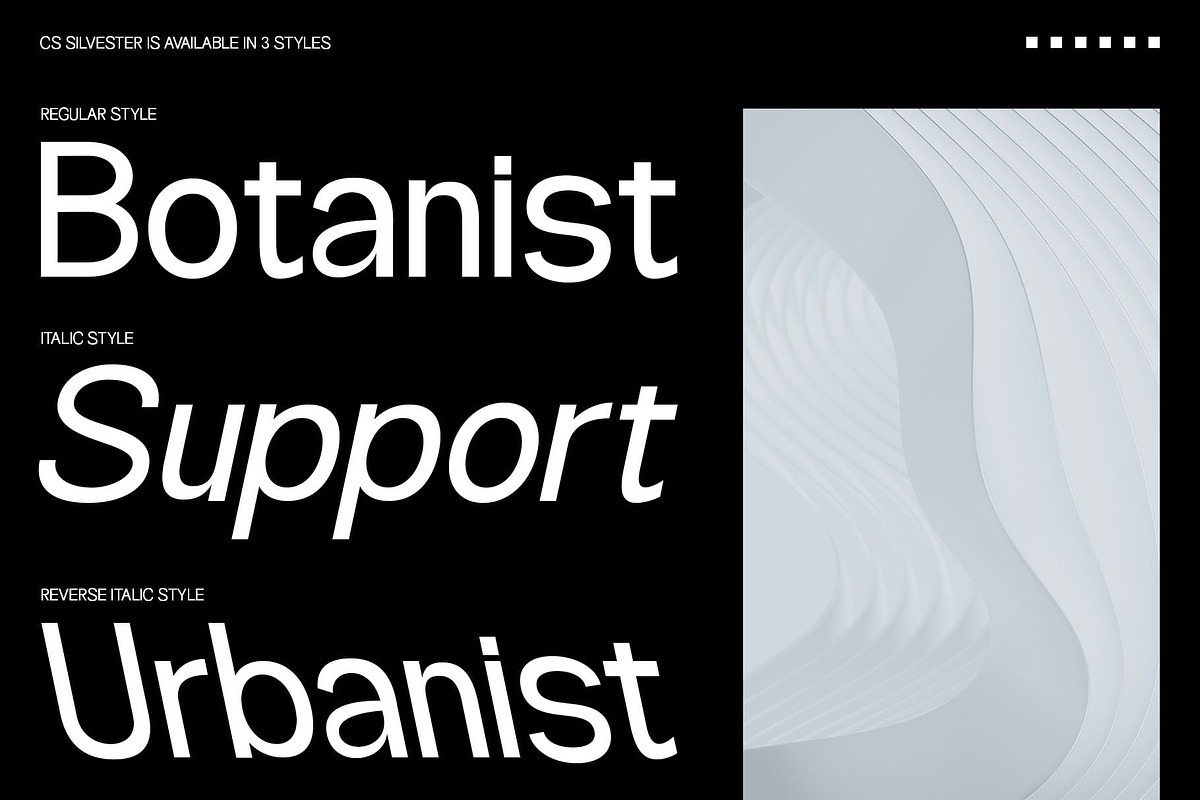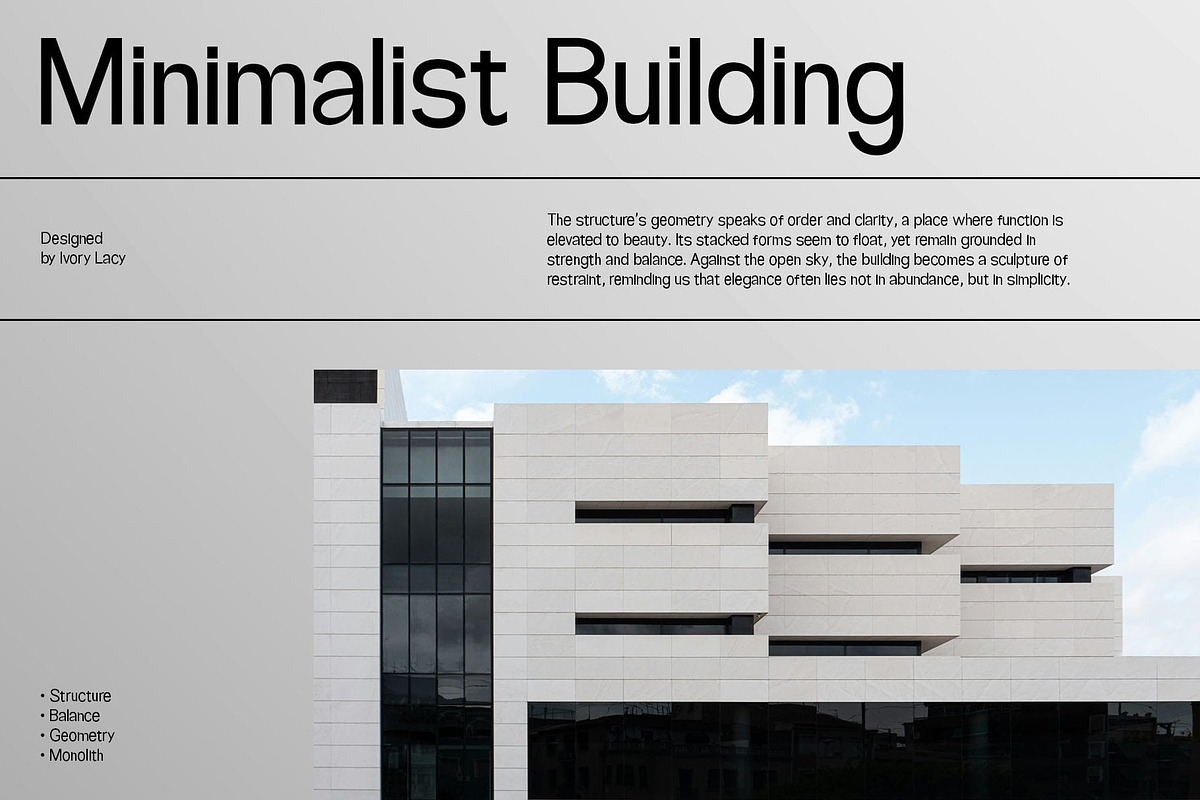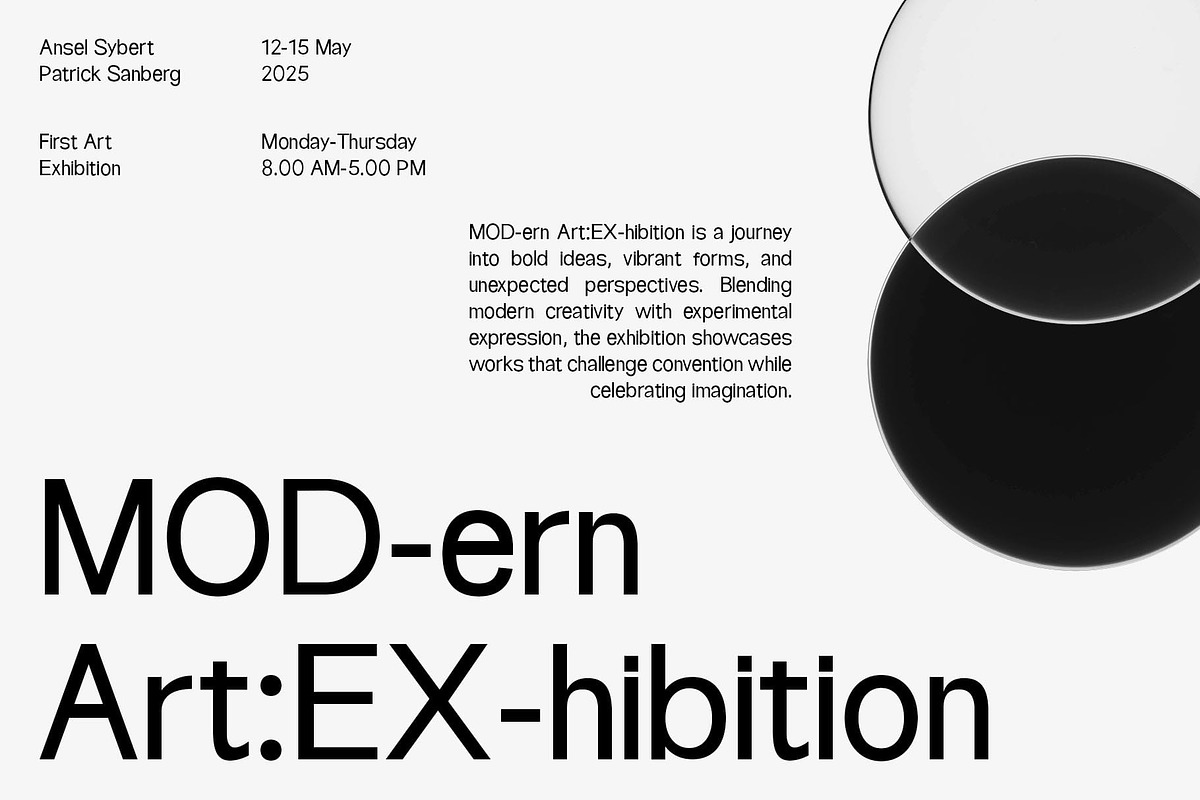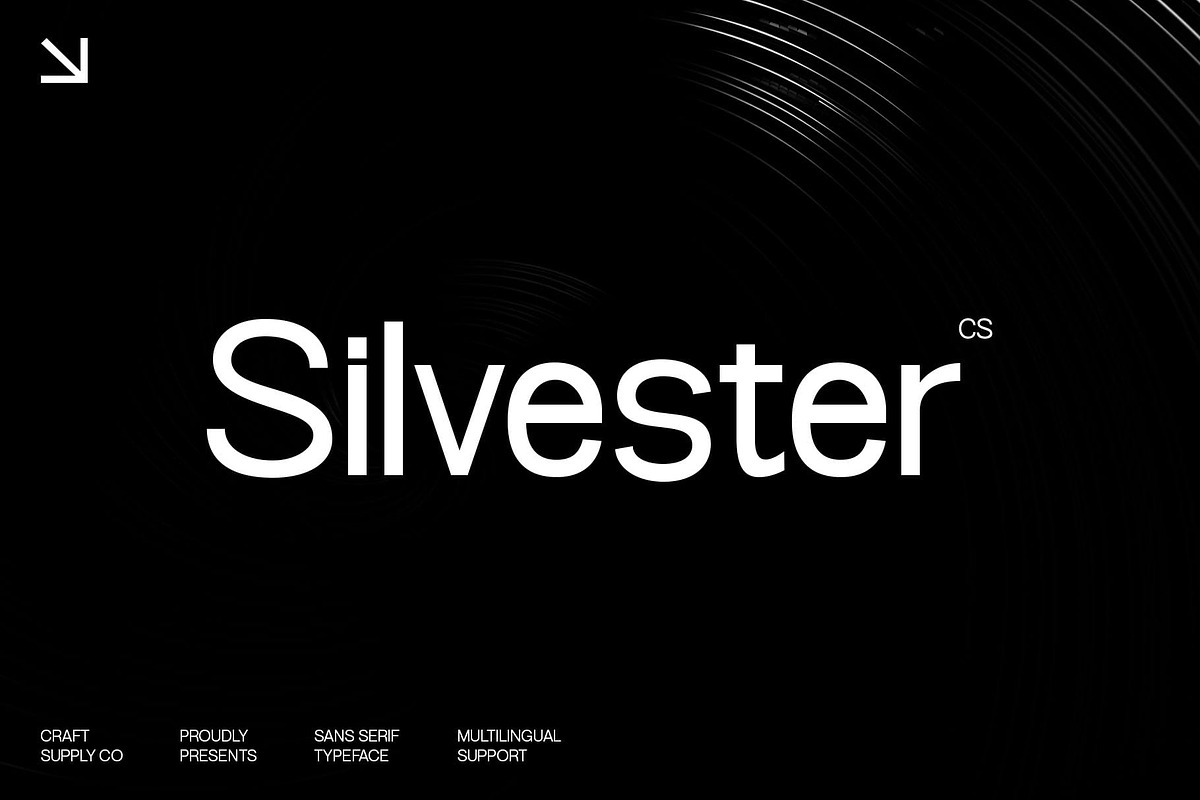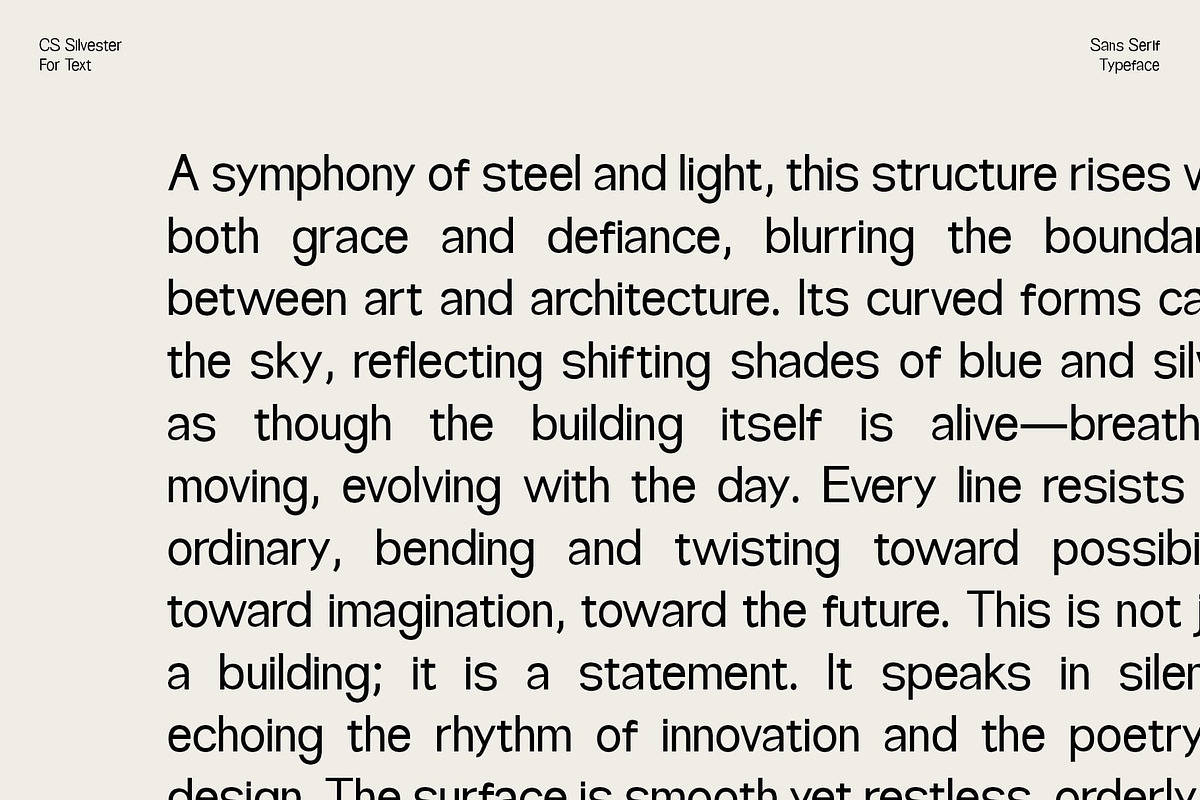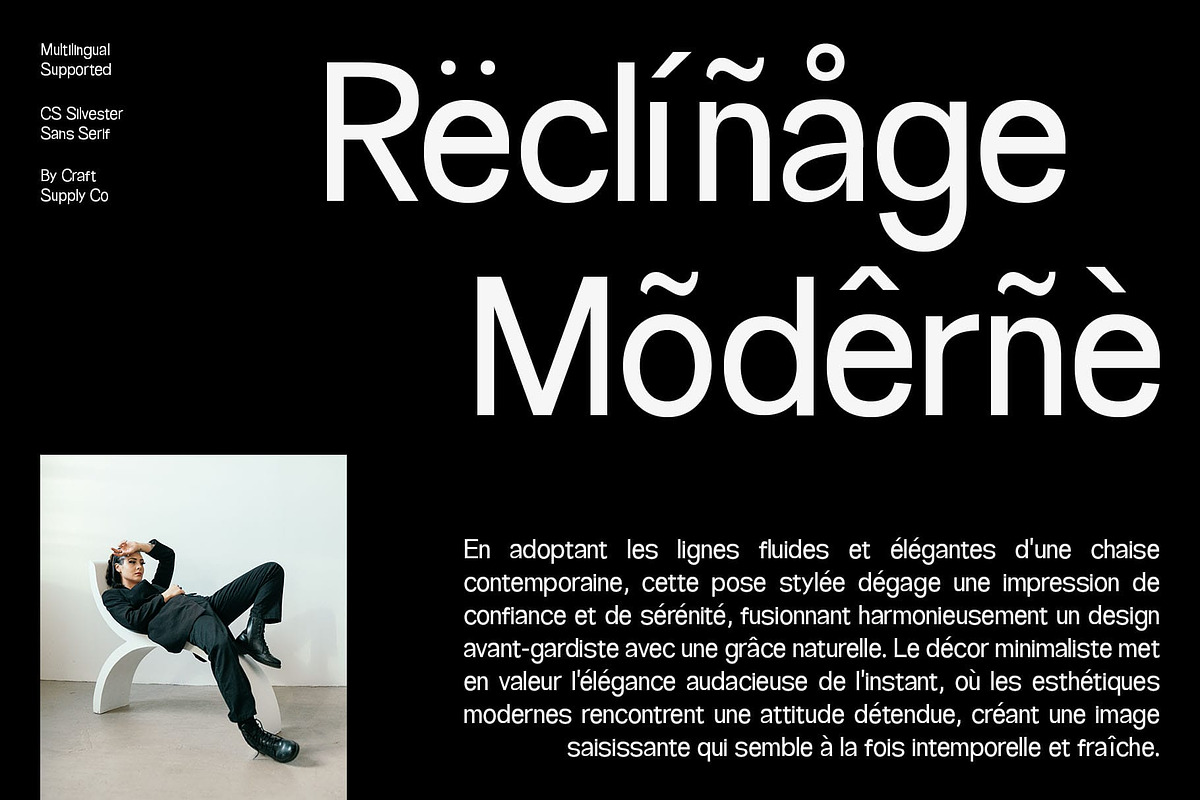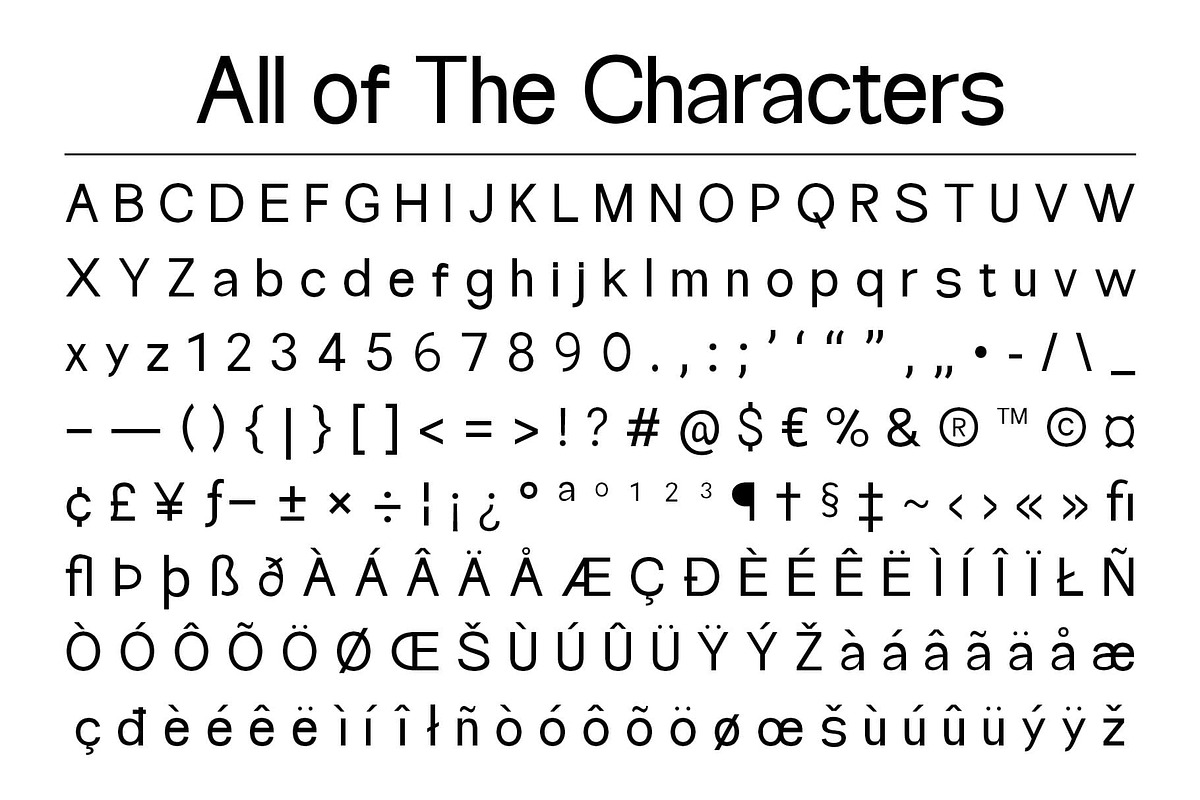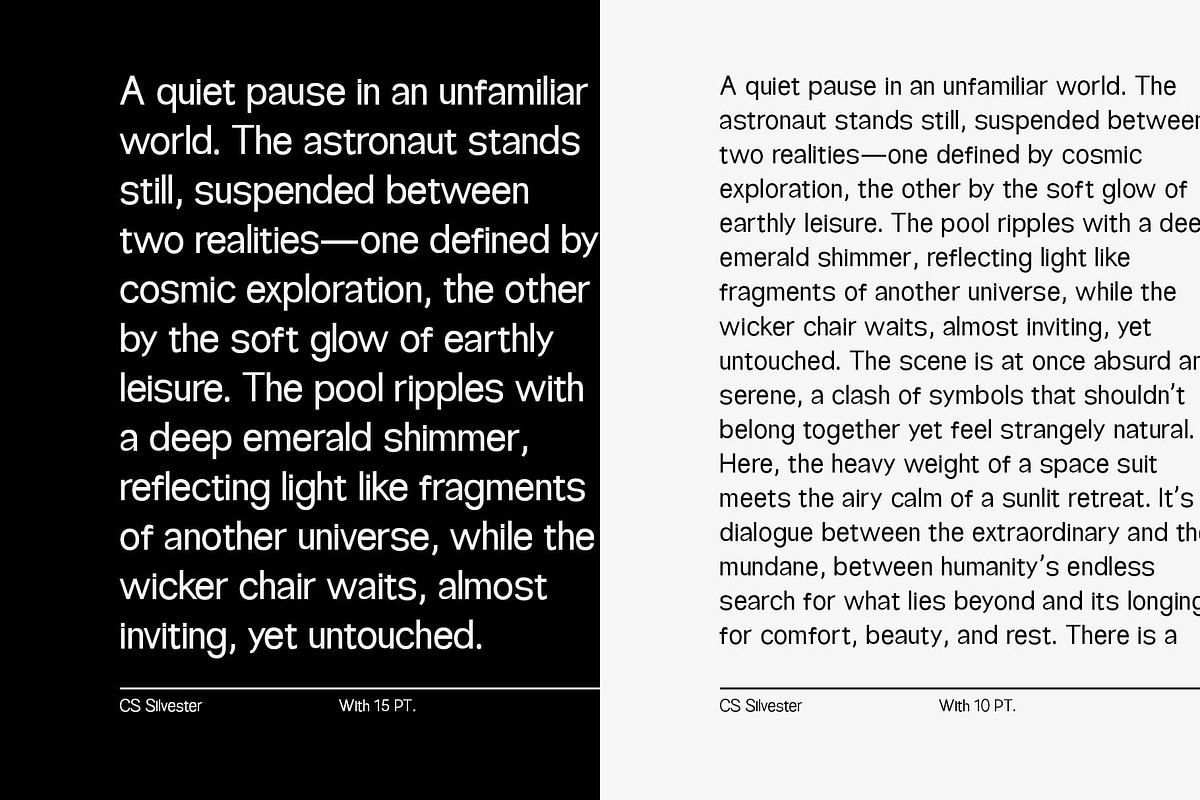
CS Silvester – Geometric Sans Serif
CS Silvester – Geometric Sans Serif with Modern Clarity: Contemporary Sans Serif for Minimalist Design
Clean and Contemporary Design CS Silvester is a geometric sans serif font built on clarity and precision. With balanced proportions and streamlined forms, it reflects a modern aesthetic that emphasizes readability and simplicity. Inspired by the timeless Swiss style, this font brings structure and sophistication to every project.
Functional and Versatile Designed with regular proportions, CS Silvester delivers dependable performance across a wide range of applications. Its clean strokes and geometric construction make it adaptable for both digital and print contexts, ensuring consistency in any environment.
Minimalist Aesthetic Perfect for projects that value simplicity, CS Silvester thrives in minimalist layouts where typography takes the spotlight. Its uncluttered style provides a professional and polished tone, making it ideal for brands that want to communicate trust, clarity, and modernity.
Perfect for Branding and Design From web design and advertising to posters, logos, and experimental typography, CS Silvester offers endless versatility. Its geometric strength and Swiss-inspired style ensure that it can serve both corporate professionalism and creative exploration with equal impact.
- CS Silvester Regular
- CS Silvester Italic
- CS Silvester Reverse Italic